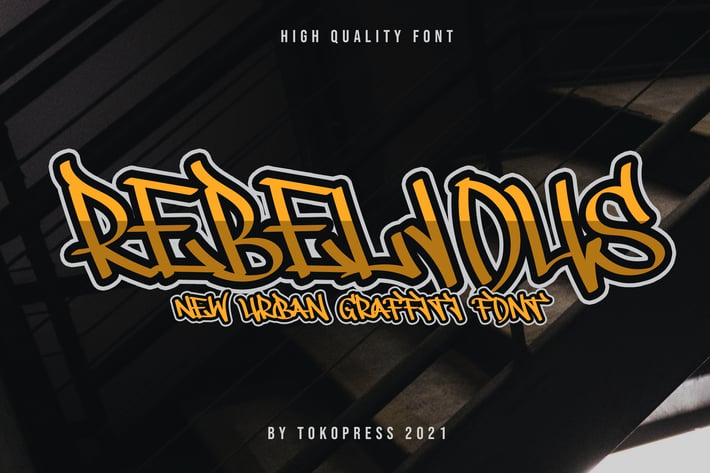
REBELIOUS - powerful graffiti font
REBELIOUS - Powerful Graffiti Font
REBELIOUS is a powerful graffiti-style display font designed for those who crave loud visuals and expressive lettering. With wild brush strokes, exaggerated forms, and untamed curves, this font radiates a rebellious, bold attitude. Perfectly unpolished and naturally dynamic, it captures the raw energy of underground street art and hip-hop battle culture. Its distorted, yet legible structure adds gritty authenticity—ideal for punchy visuals that need to speak loudly.
This font thrives in energetic, urban contexts—think rap album covers, streetwear branding, or skate-punk event posters. Its letterforms are irregular, wide-set, and full of personality, mimicking quick spray strokes or marker tags while still maintaining artistic flow.
Use REBELIOUS to inject raw energy into your designs. Whether you're building a fashion-forward streetwear label, creating edgy YouTube thumbnails, or designing music festival merch, this font channels urban rebellion and counterculture aesthetic into every glyph. Designers can now grab attention with a font that doesn’t play by the rules—perfect for those seeking to amplify youth identity and urban expression in branding, editorial layouts, or even music streaming visuals.
Key Features :
Built for Statement-Driven Designs
- High-impact strokes with raw edge finish
- Perfect for youth culture visuals, hip-hop branding, street lifestyle content
- Unique handmade aesthetic—each letter feels alive
Flexible for Modern Visual Contexts
- Ideal for Instagram reels, album art, poster headlines
- Great for extreme sports, indie fashion, or street poetry visuals
* Attention-Grabbing by Design
- Letterforms designed with loud rhythm, flow, and unexpected proportion
- Triggers instant visual interest in fast-scrolling social media environments
- Basic latin A-Z and a-z, Numbers, Punctuation